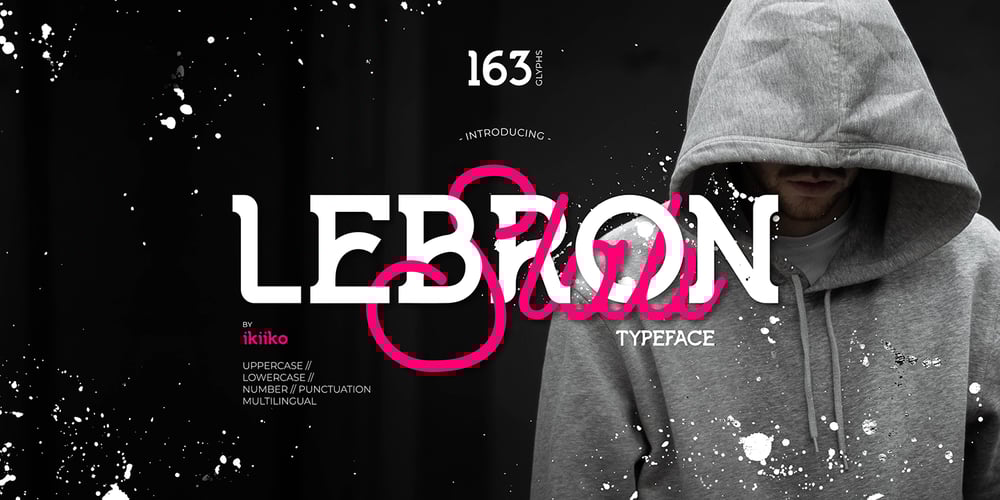
Lebron Slab Font Family was designed by Andhika Pradana and published by IKIIKOWRK. Lebron Slab contains 1 styles and family package options. Introducing LEBRON Slab, created by ikiiko.A slab series font with geometric feel and modern look. Easy to use and delightfully expressive. Lebron Slab is strong and vibrant typeface. Excellent for headlines, caption, brand logo, street gear, t-shirt, school & university, and also good for sport aesthetic product.What’s Included? Uppercase & Lowercase Numbers & Punctuation Multilingual Support Format File : TTF & OTF Works on PC & Mac Get also a good offer & FREEBIE at our site : www.ikiiko.comEnjoy our font and if you have any questions, you can contact us by email : ikiikowrk@gmail.com